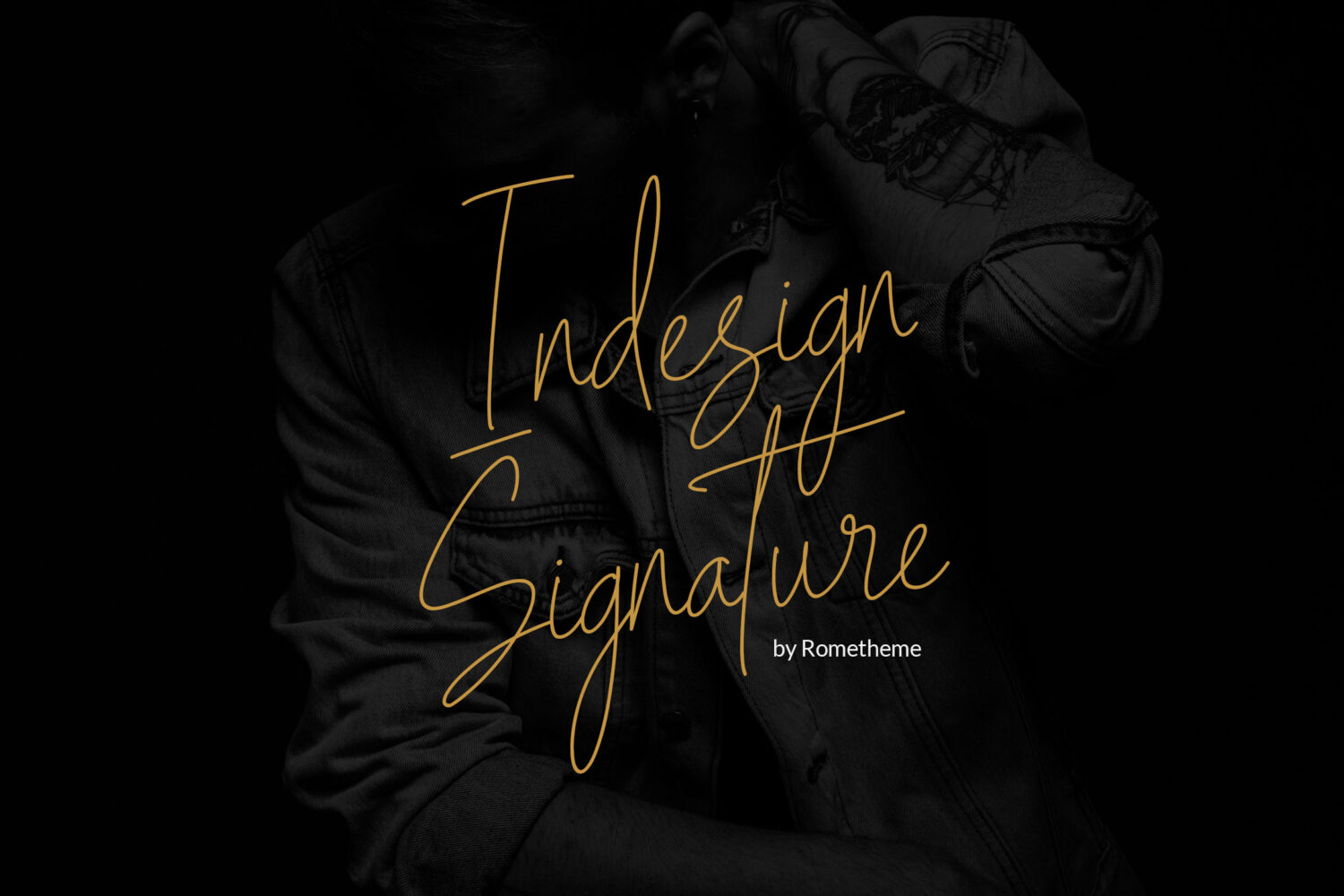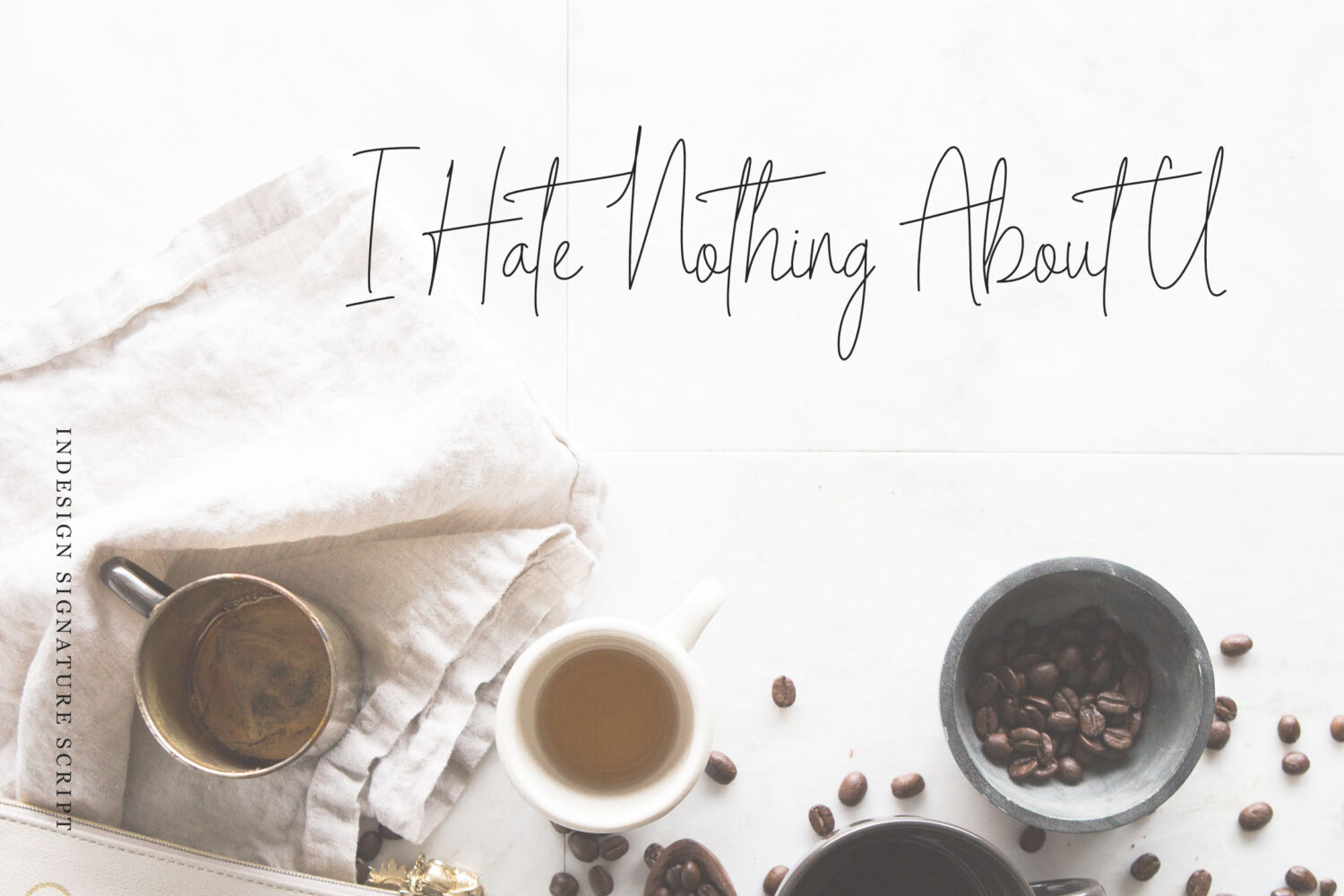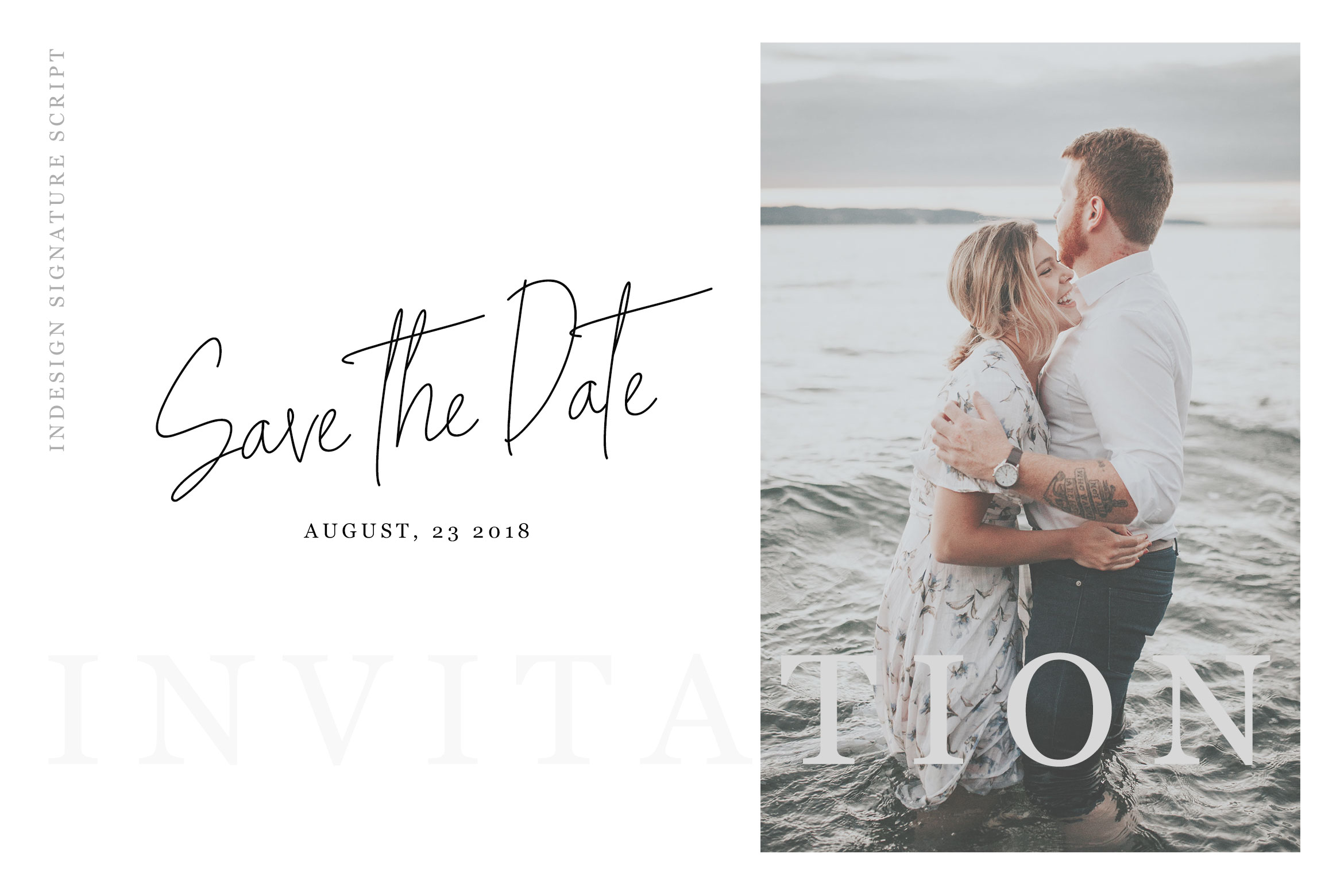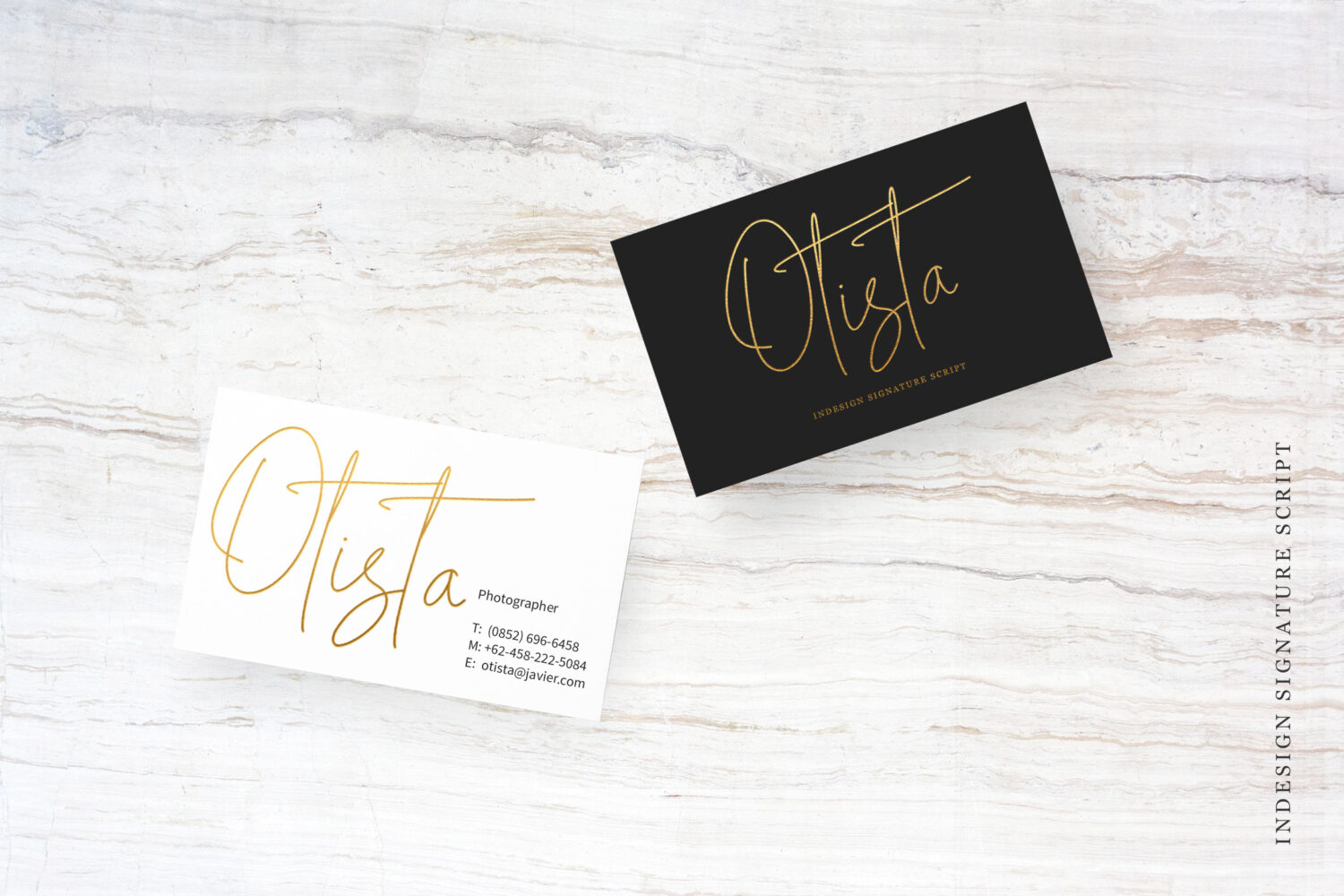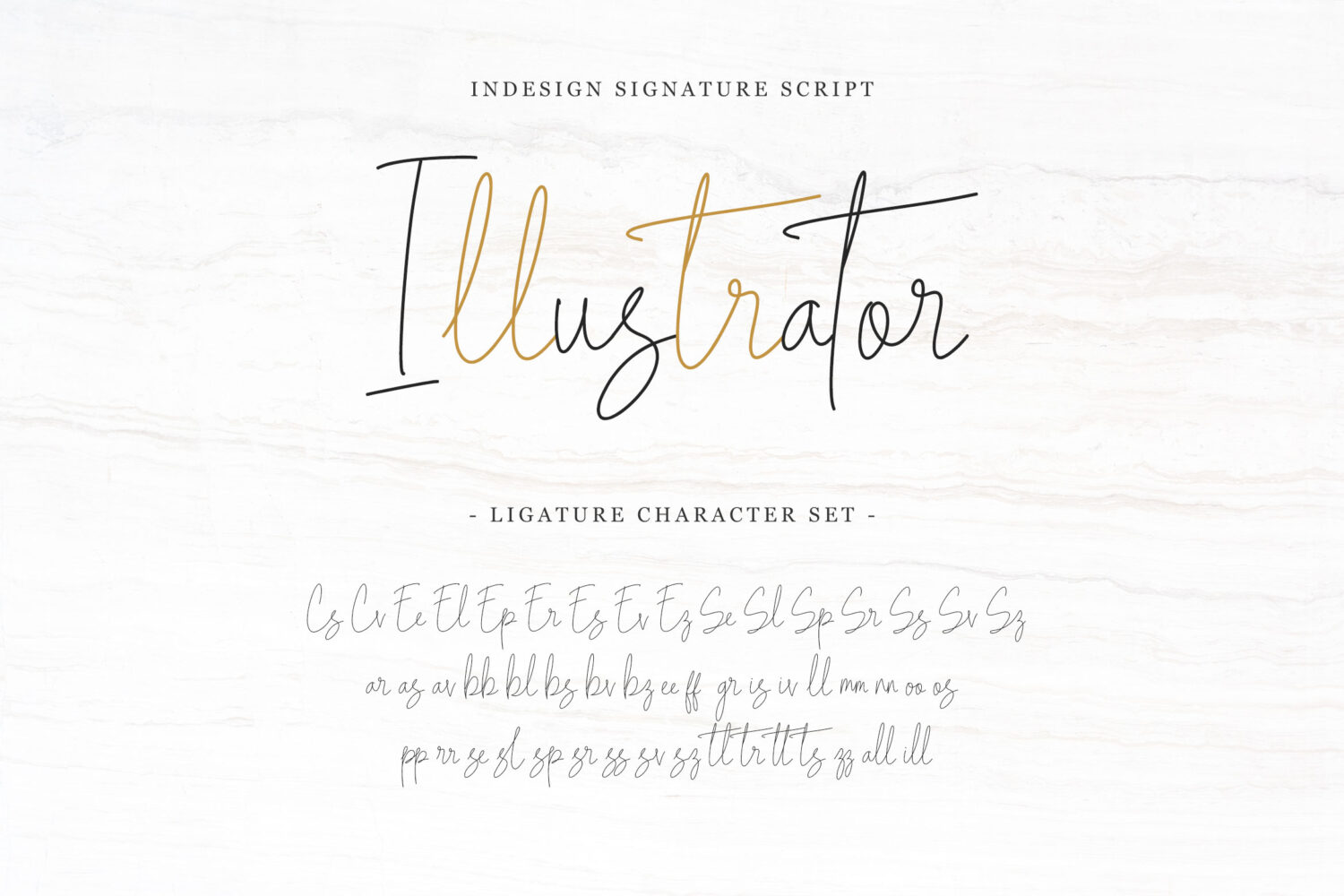
Indesign Free Font
Indesign Free Font is a beautiful and modern handwritten font script. This elegant and beautiful font is stylish and versatile so you can use it in a plethora of designs in both digital and print applications. Indesign Free Font font is the best choice for your professional design projects, including signature, watermark on photography, quotes, wedding, fashion, letter, invitation, business card, logo, branding, magazines, social media, advertisements, product designs, and much another design project. This free typeface was designed by a talented Yahdi Romelo. If you like it don’t forget to check out the full version.